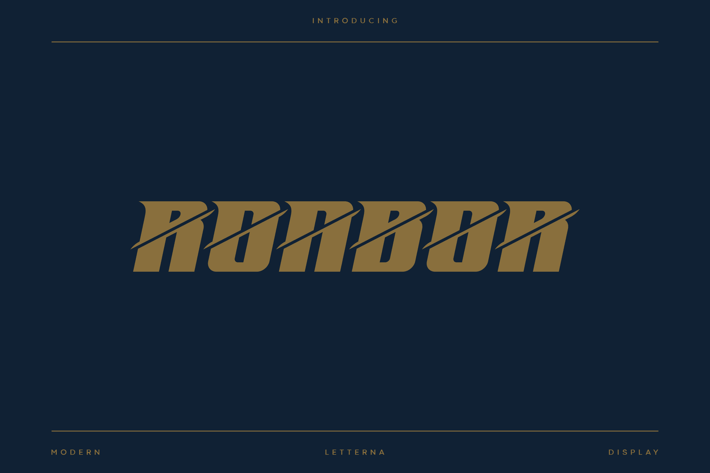
Ronbor - Display Sports Typeface
Letterna
Ronbor is display sports font with visual elegance, smooth curves and beautiful fast style, making your work look true and attractive. This font is suitable for a wide variety of projects such as invitations, logo, branding, magazine, photography, card, product packaging, mugs, quotes, poster, label, signature and more.